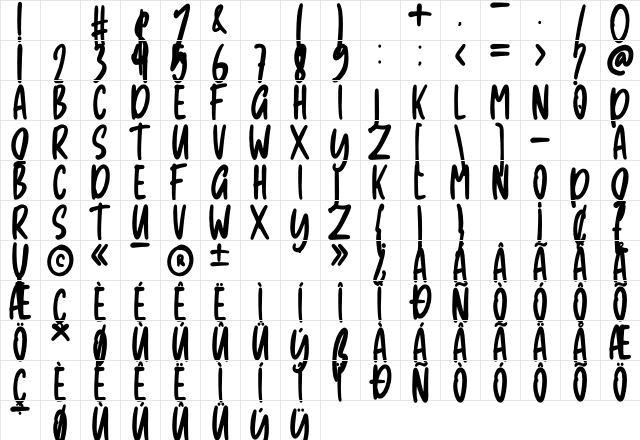
Taycus Regular Free Font
Taycus Regular
Designer: Skiiller studio - M irfan mahmudin
Design Context for Taycus
Taycus is a composed and adaptable typeface that performs quietly and consistently across a wide range of design contexts.